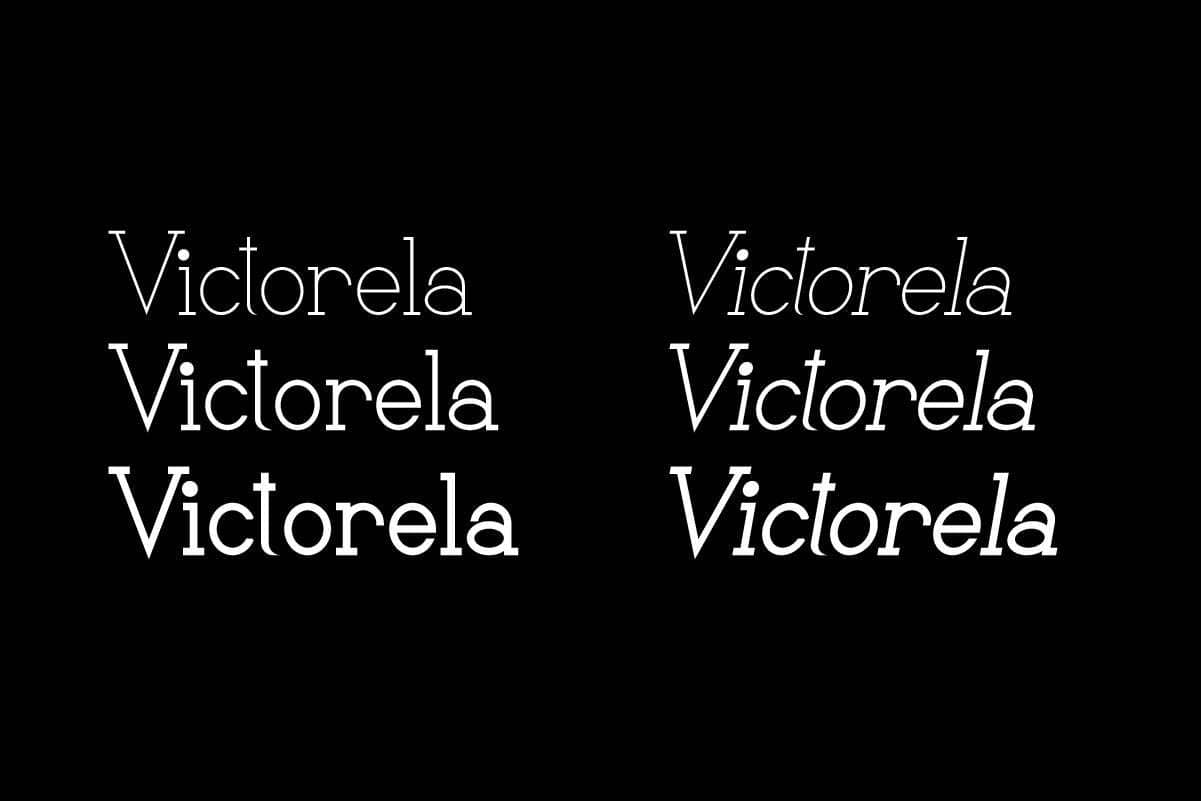
Victorela Font is a modern Serif font family with six different weights/styles, inspired classic era, exclusively designed by RaisProject. You can see the demo font below. You can also input any word you want so you can see what it will look like :